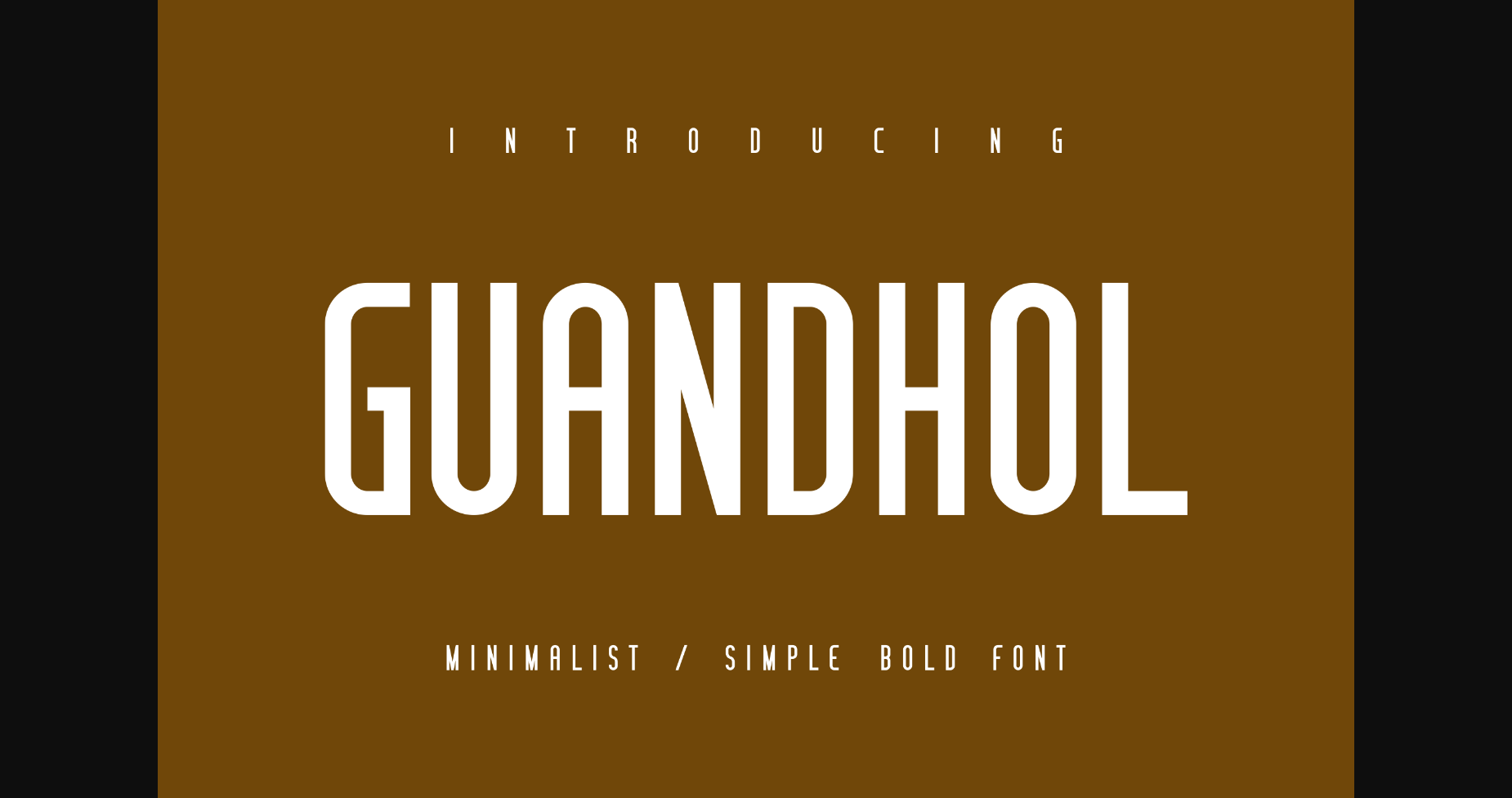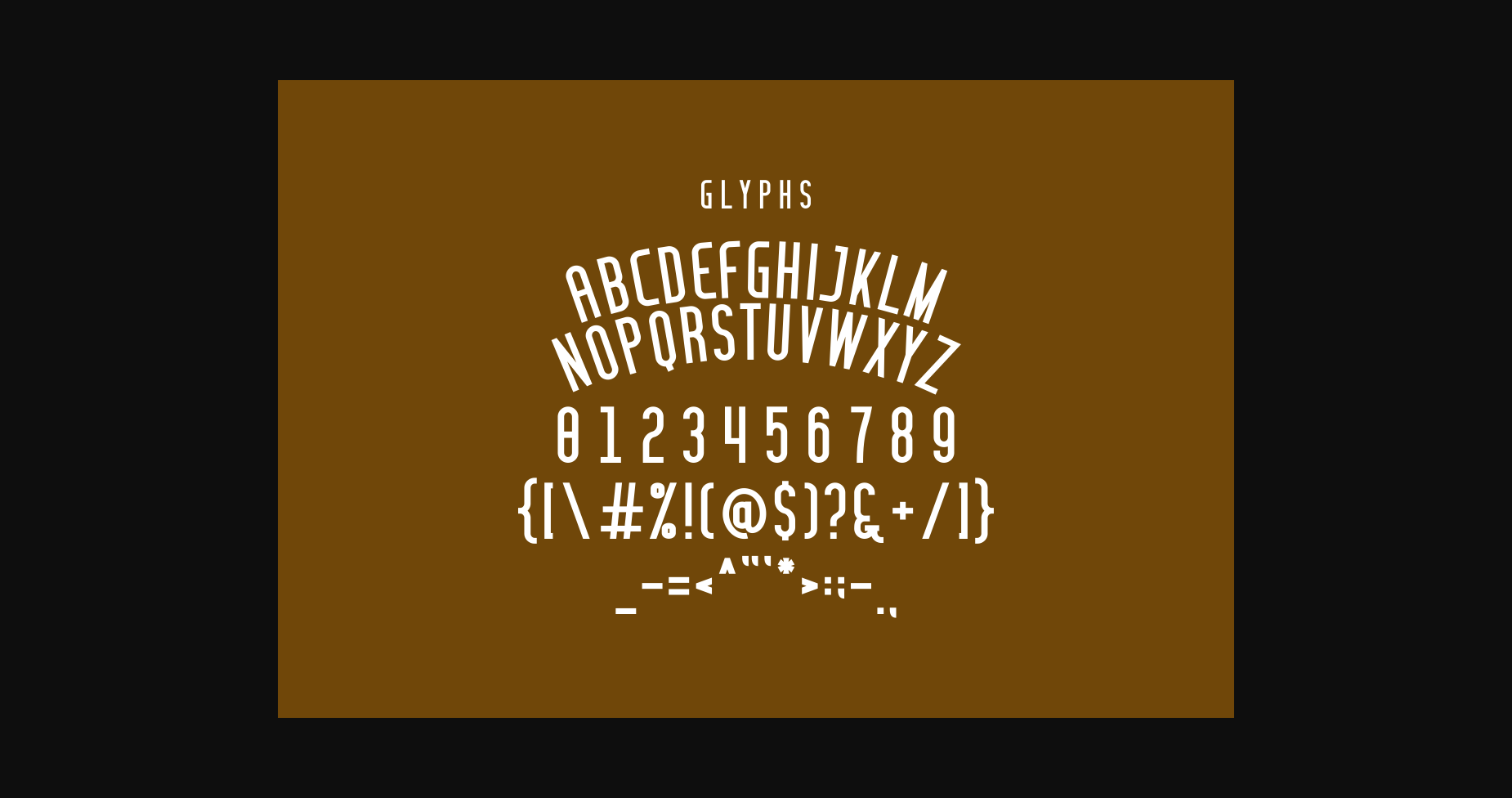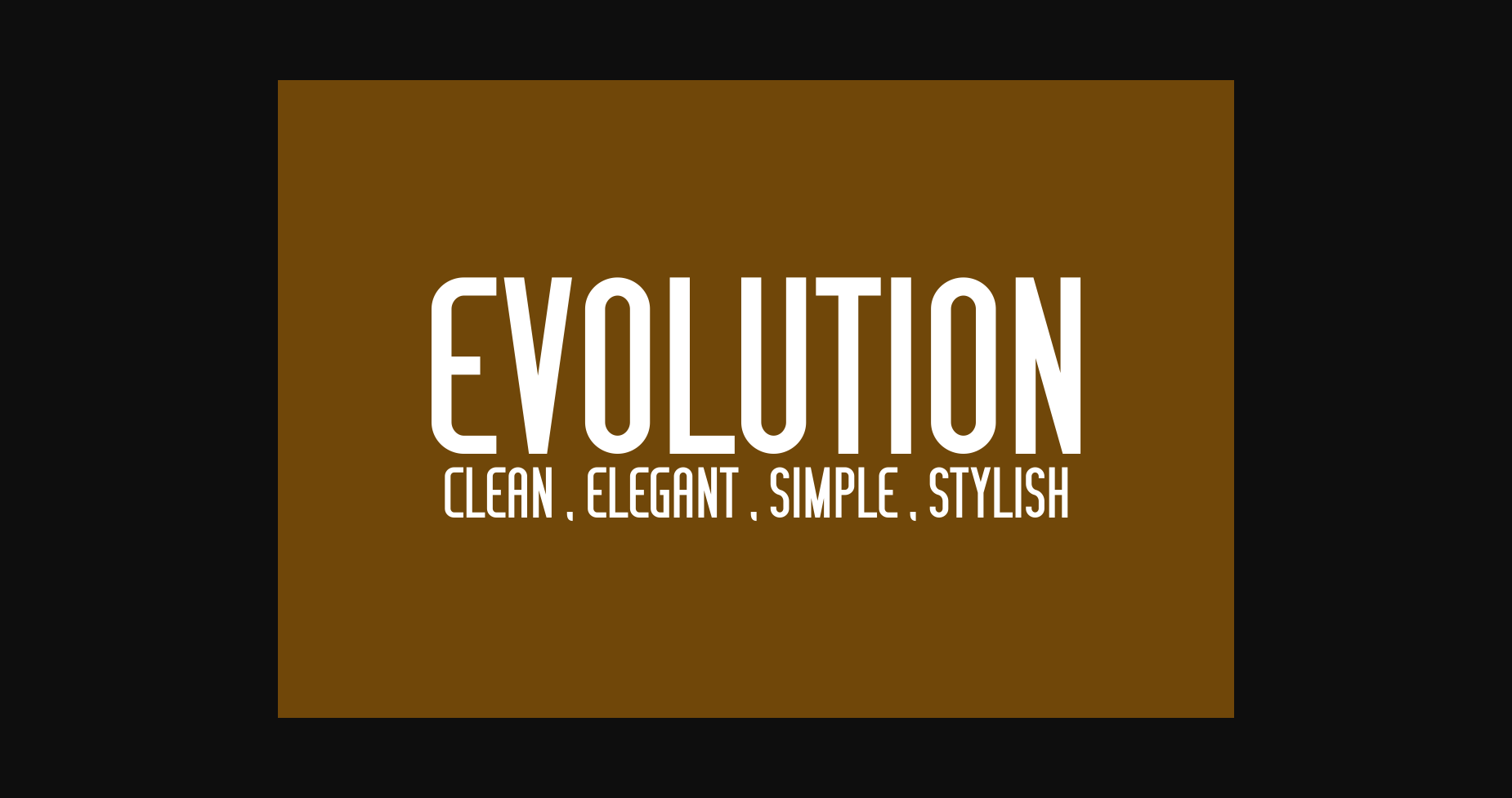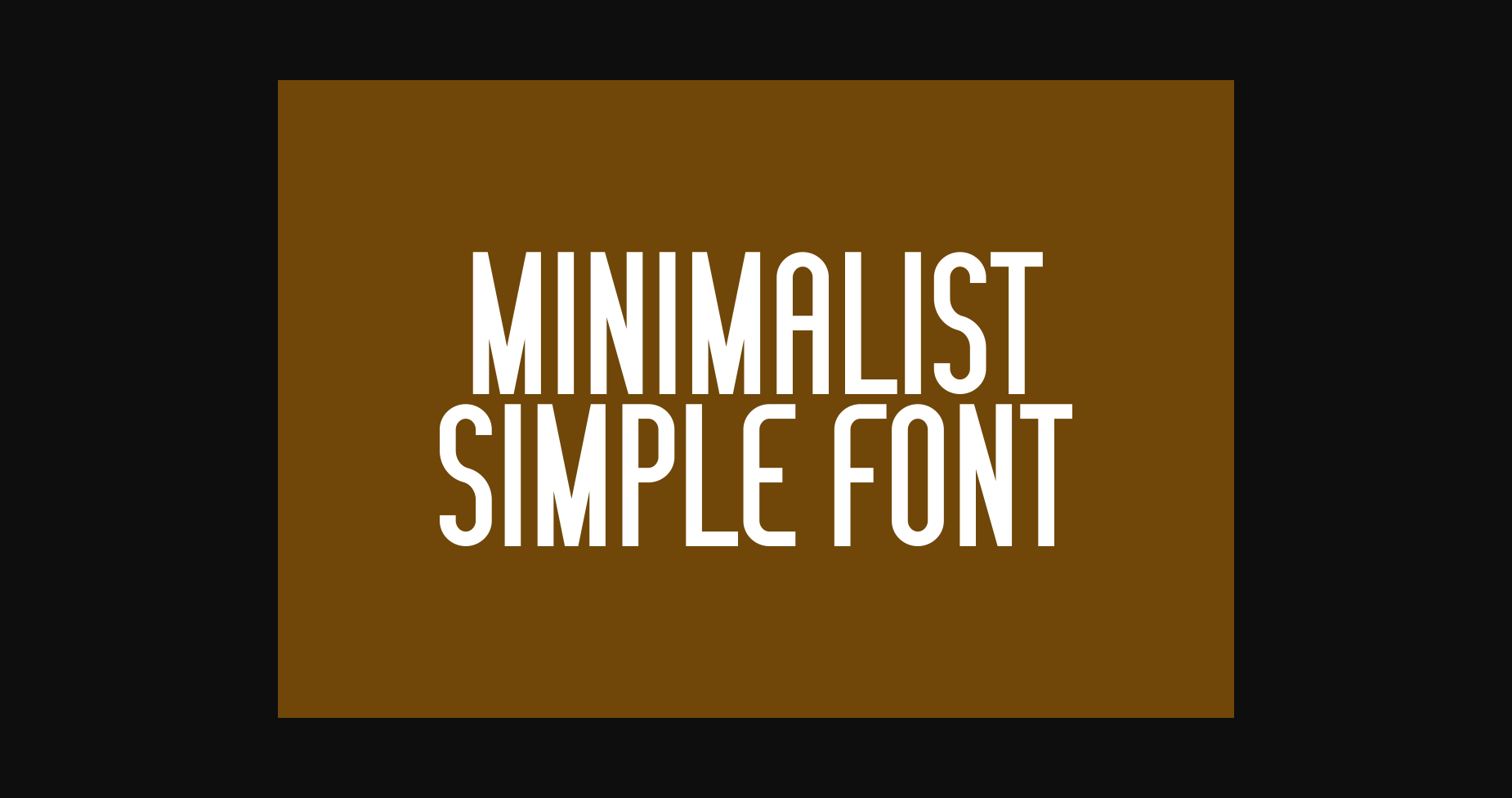
Guandhol Bold Font
About Guandhol Bold Font
Gunadhol is an elegant serif font, that features a very delicate and classy look. Not too thin and not too thick, balanced and varied, Florania was designed to enhance the beauty of your projects.